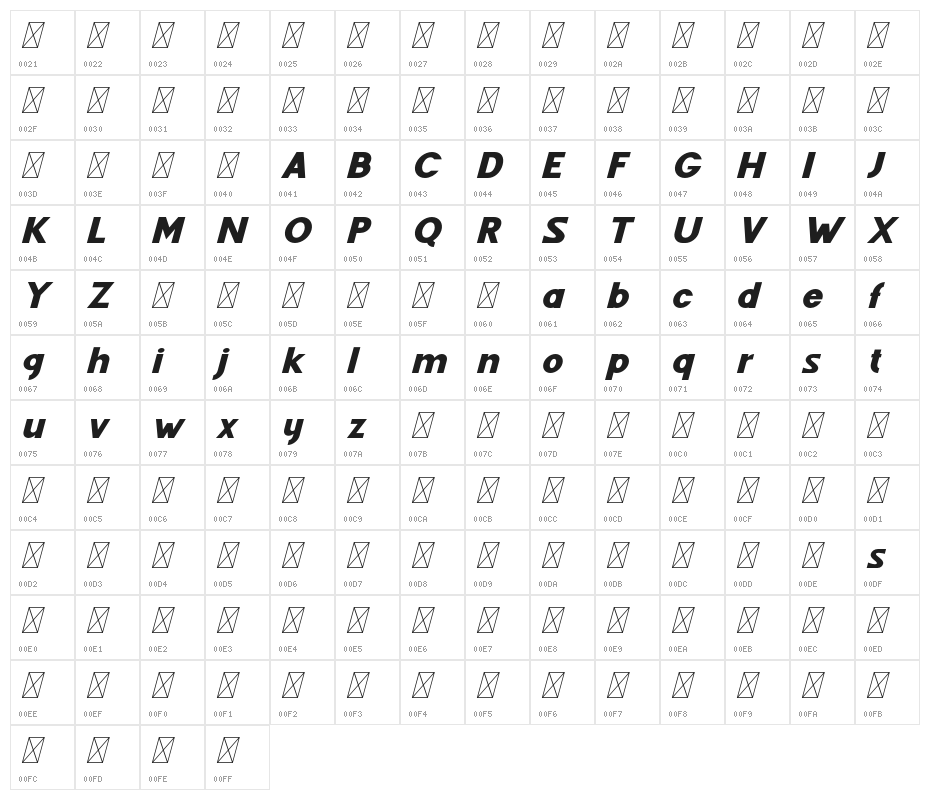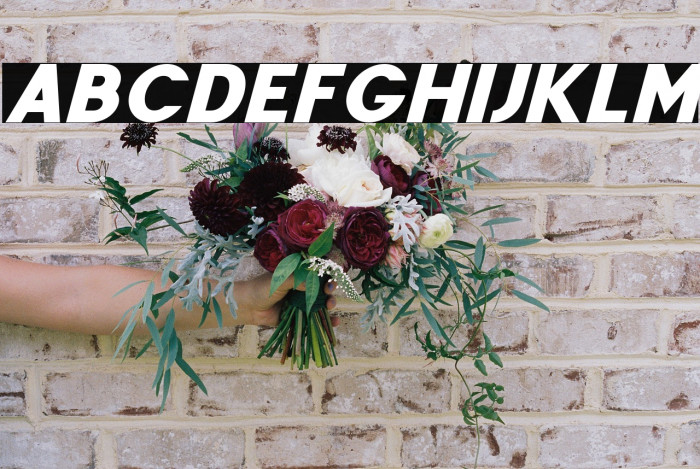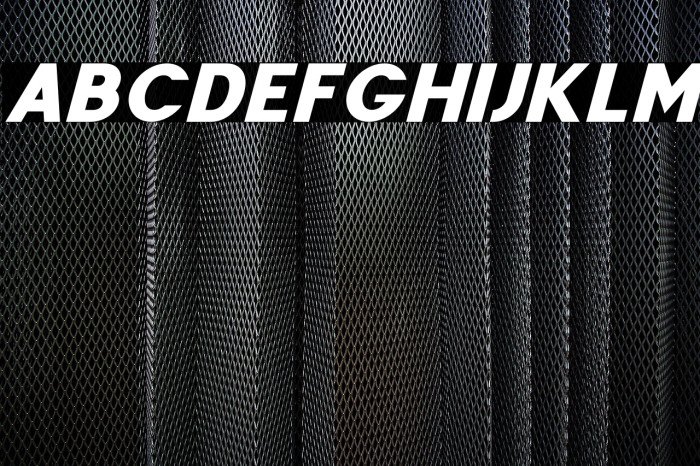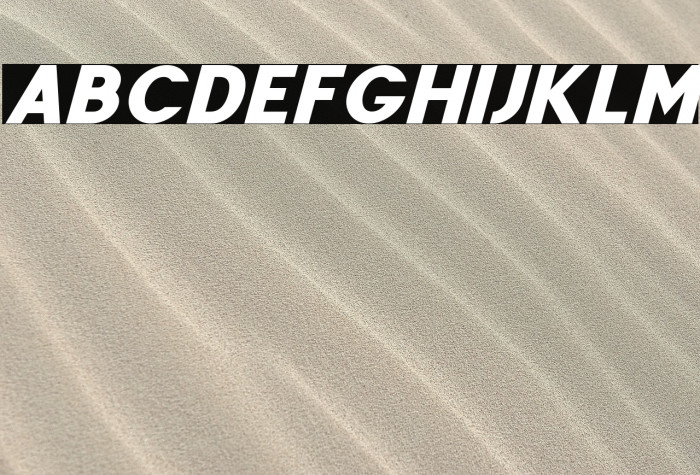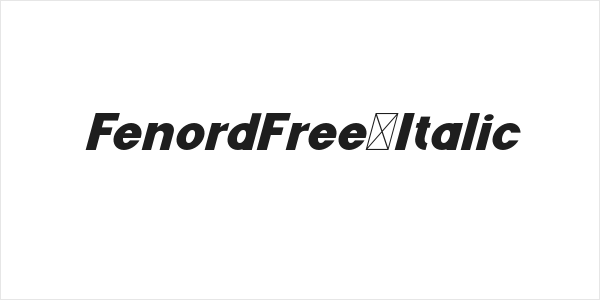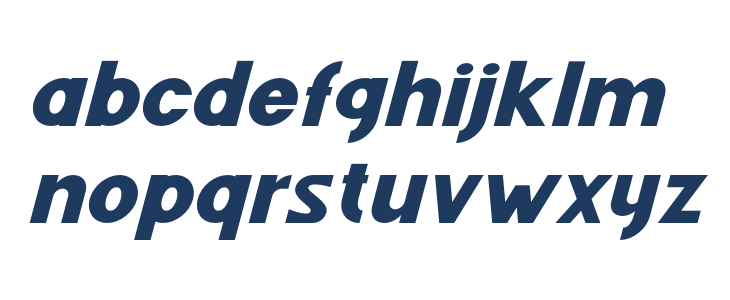
FenordFree-Italic Font
FenordFree-Italic Description
This font features a bold and dynamic italic style, characterized by its strong, slanted letterforms that convey a sense of movement and energy. The uppercase and lowercase letters are well-proportioned, with a consistent stroke width that adds to its bold appearance. The font maintains a modern aesthetic, making it suitable for contemporary design projects. Its clean lines and smooth curves ensure readability while adding a touch of sophistication. The spacing between characters is balanced, providing a harmonious flow in text. This font is versatile, suitable for various applications where a bold and modern italic typeface is desired.